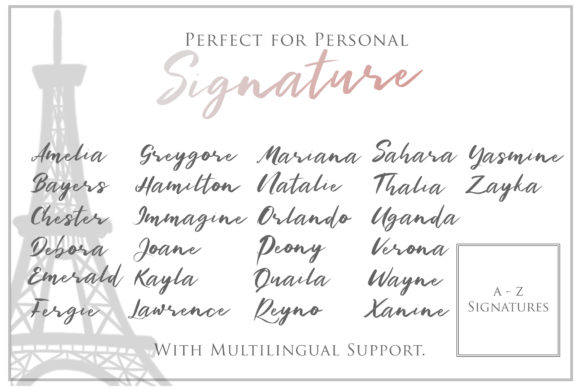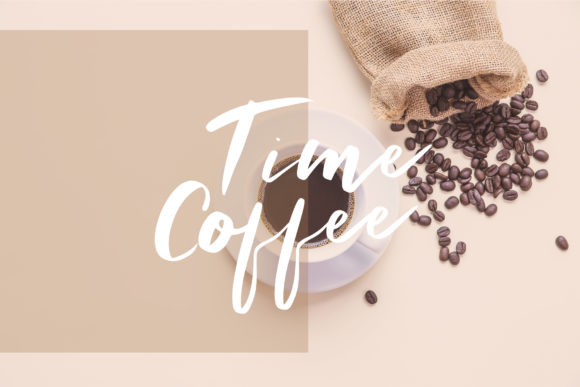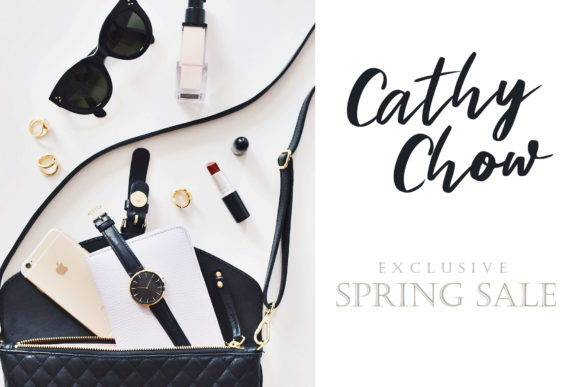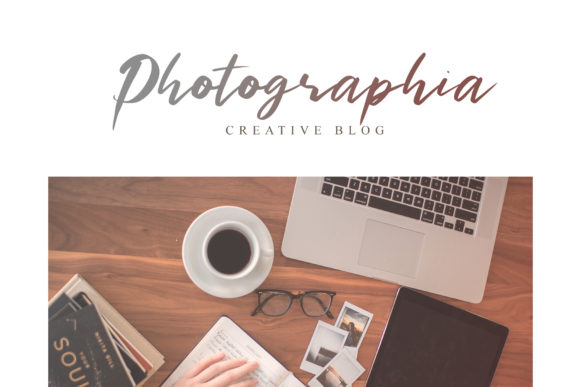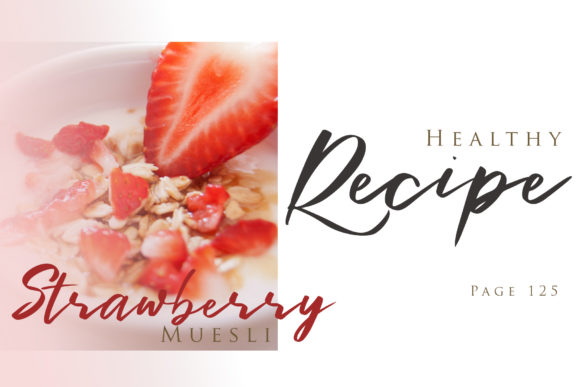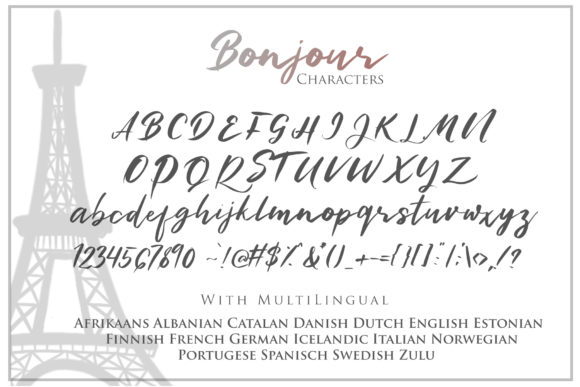
Bonjour Font
About Bonjour Font
Bonjour is a beautiful and light handwritten font with an amazing feel. It will add a level of sophistication to any design idea!